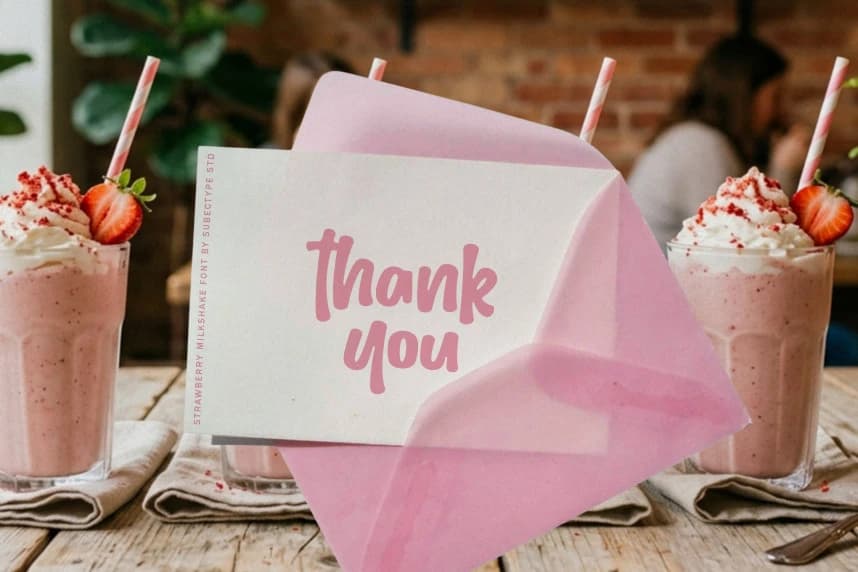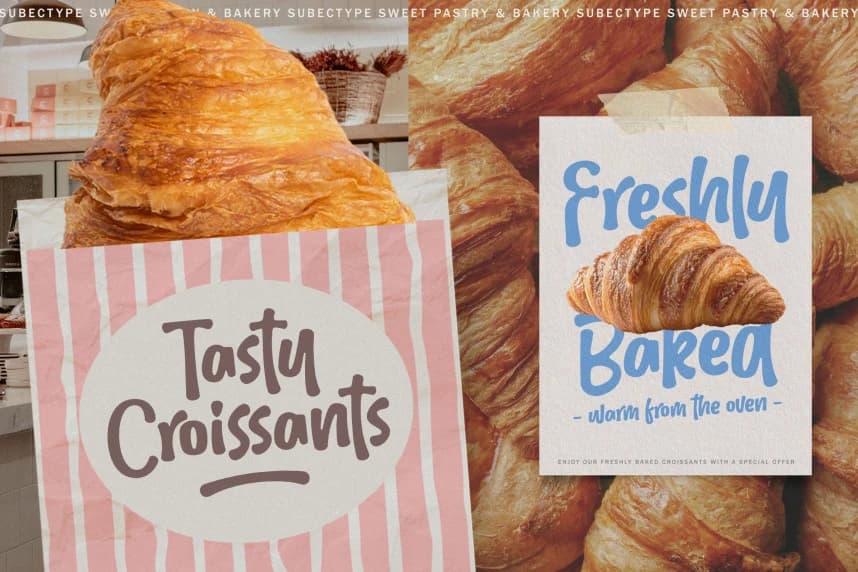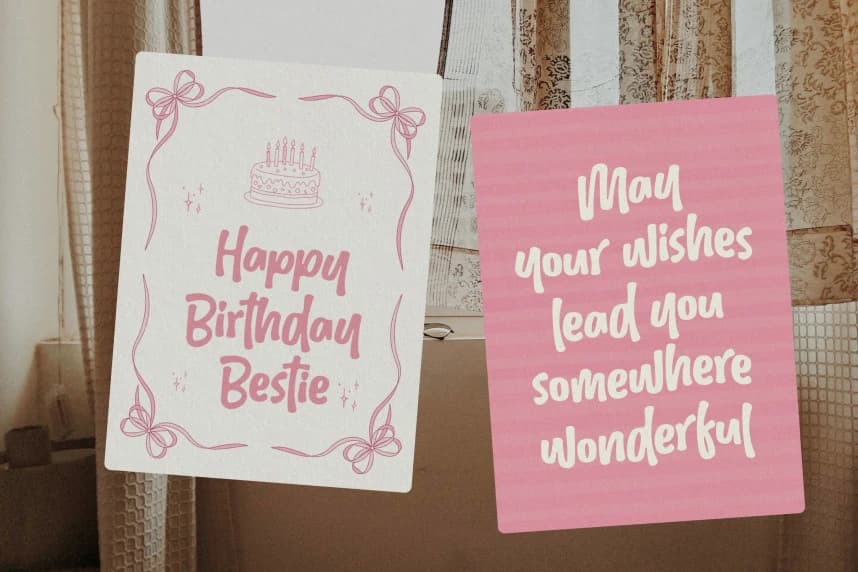
Strawberry Milkshake Font
Strawberry Milkshake Font a handwritten font that captures the effortless beauty of natural handwriting. With its smooth strokes and relaxed rhythm, this typeface brings a friendly touch to any design from branding and packaging to wedding invites and social media quotes.
Strawberry Milkshake